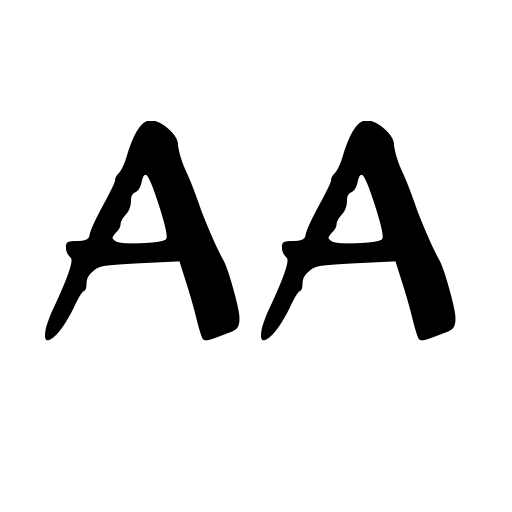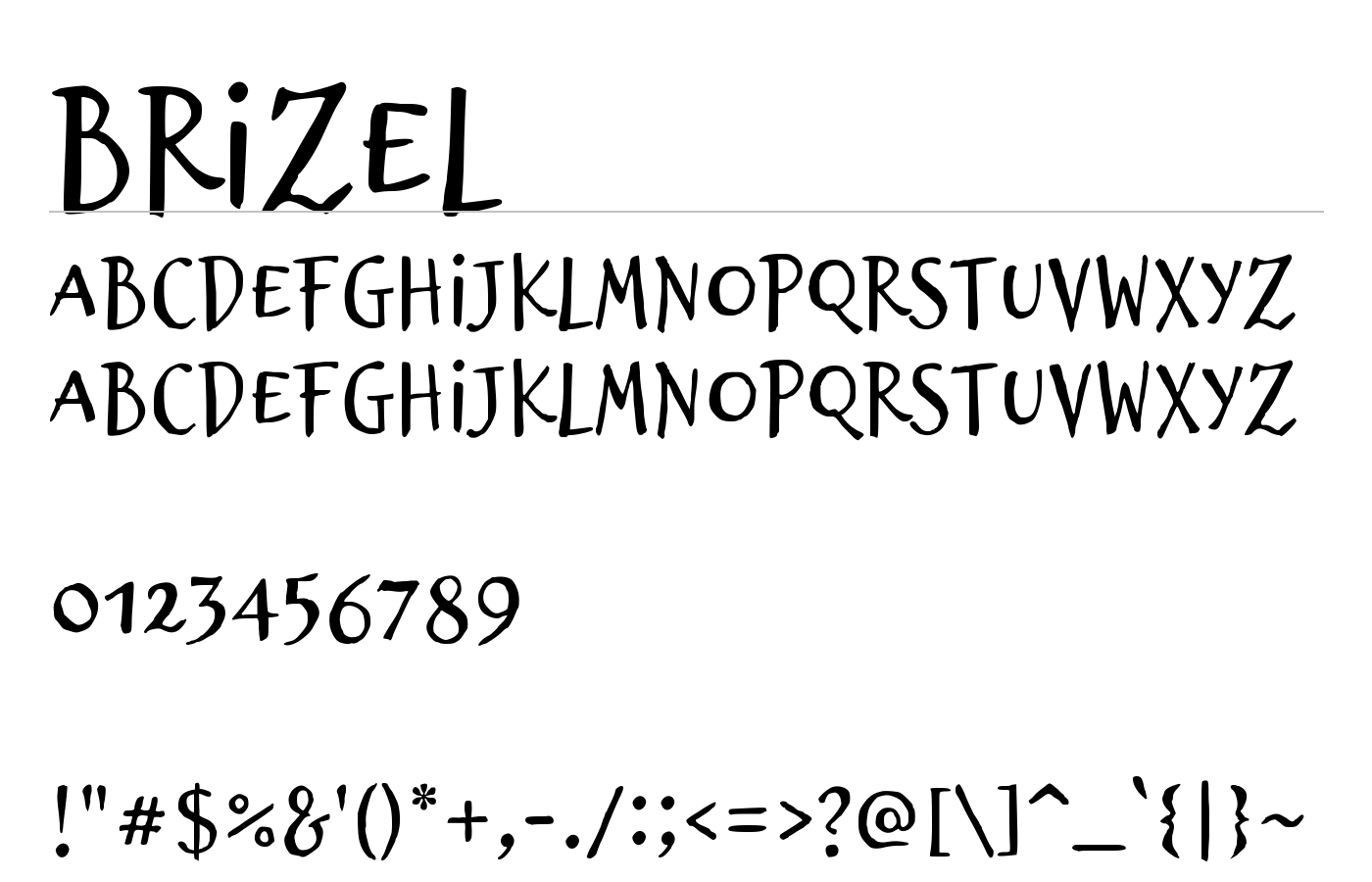
Brizel is a playful, hand-drawn sans serif font with irregular, slightly wavy strokes that give it a friendly and casual feel. Its lively character shapes and medium weight make it ideal for creative projects, informal branding, and fun headlines where a personal touch is desired. This font works well in posters, children’s books, and websites looking to convey a warm, approachable personality.
Brizel Font
About Brizel Font